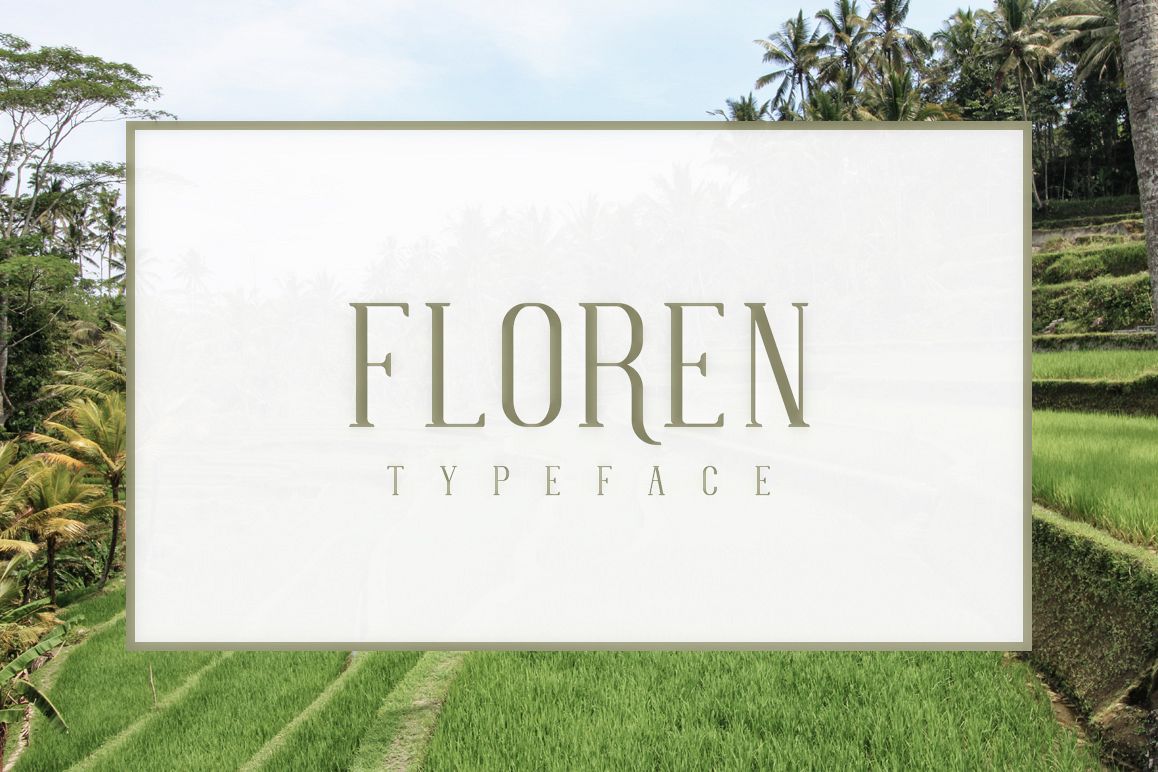
FLOREN TYPEFACE
Introducing FLOREN TYPEFACE a simple and beautiful font made with persistence and passion. Floren typeface have a unique character when compared with the others serif font, it have special bracketed serif shape.
Floren typeface is suitable for simple logo design, website header, menu fonts for website. to design fashion, and others who have a minimalist and simple concept.